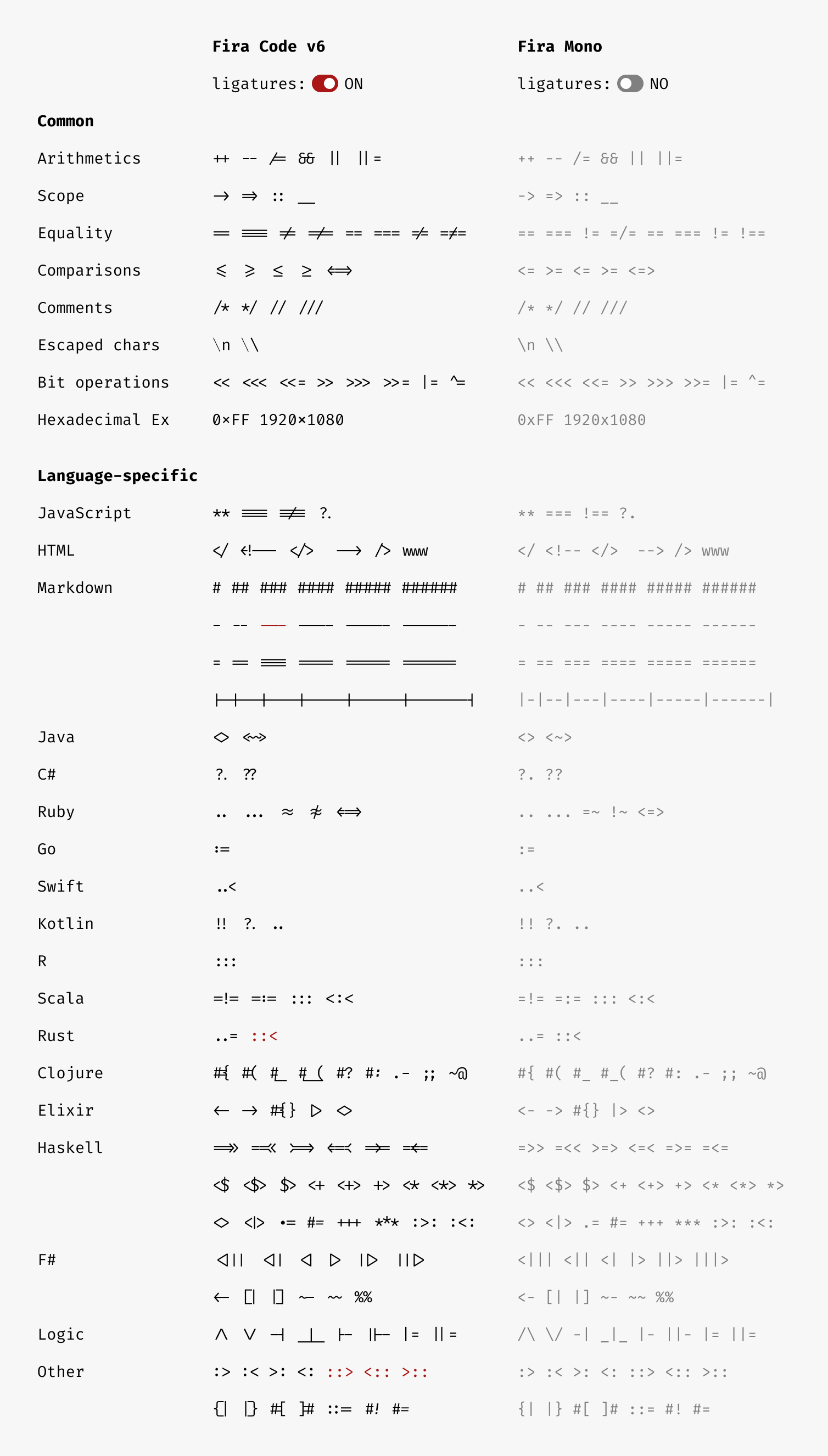
Monospaced Font with Programming Ligatures are Bad
Don't Use Programming Ligatures Font
Ligature font means it combines a sequence of 2 or more characters and display them as a single glyph.
e.g.
-> is displayed as →.
Fira Code began the code ligature fad of zoomers, around 2014.
Ligature font is no good. You want to see char as is, not seeing middlemen. It adds complexity for a little prettiness.
If you wanna see pretty characters such as lambda displayed as λ, use a programing language that allow unicode in name or operators directly.